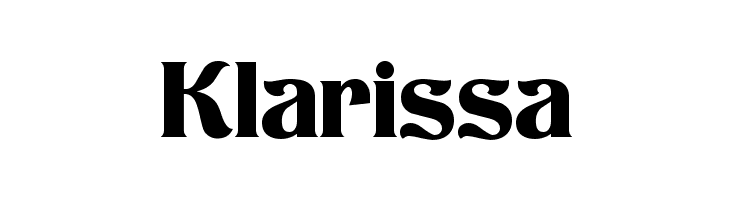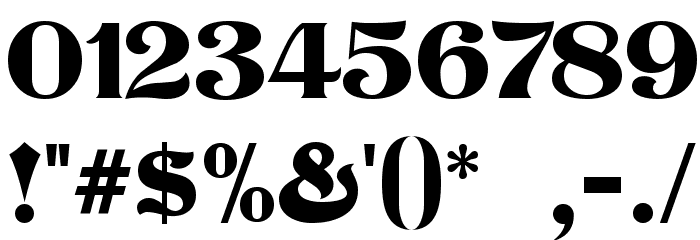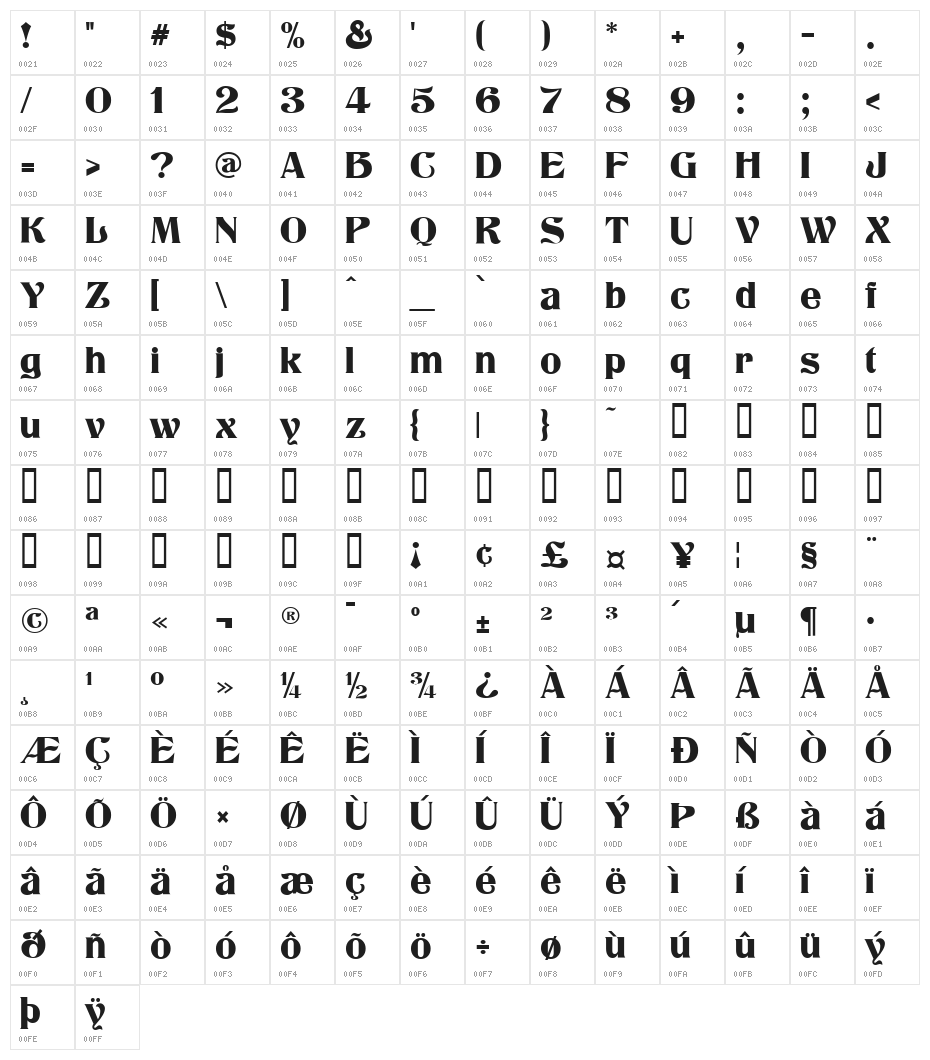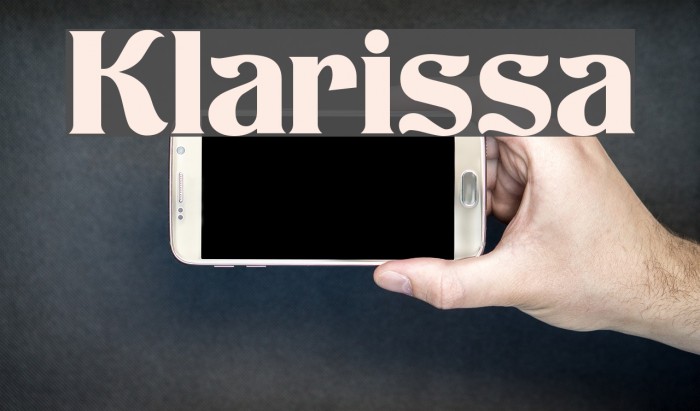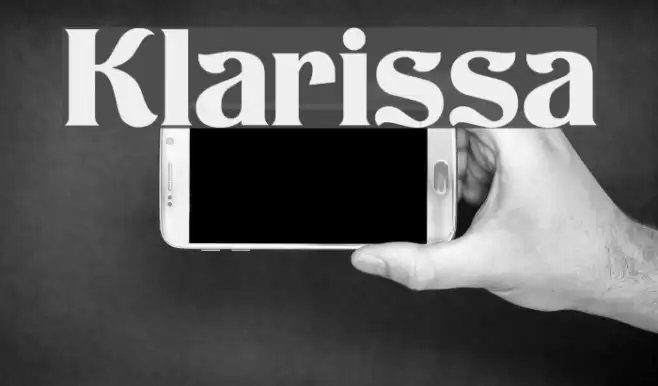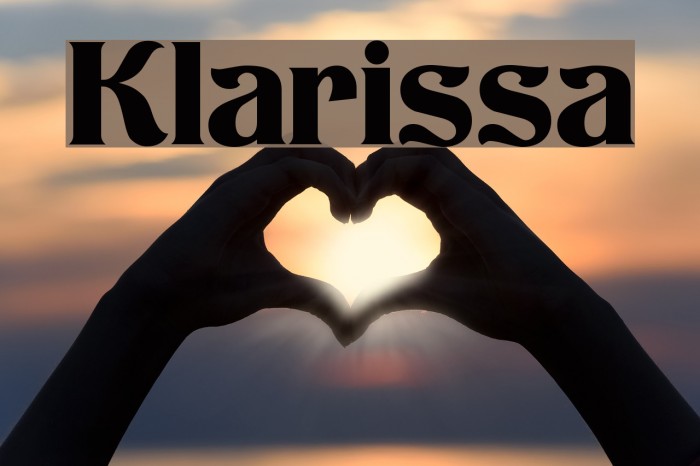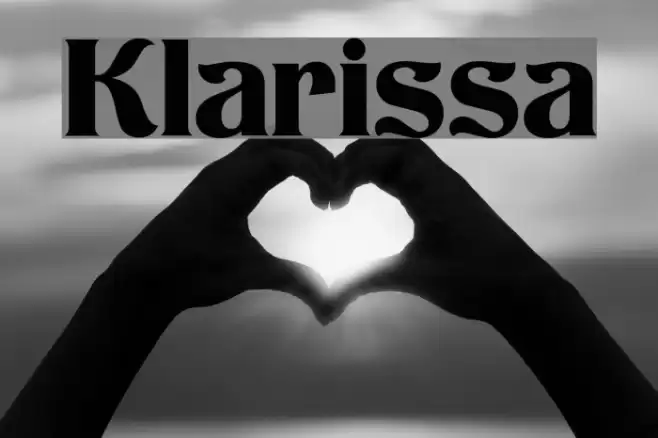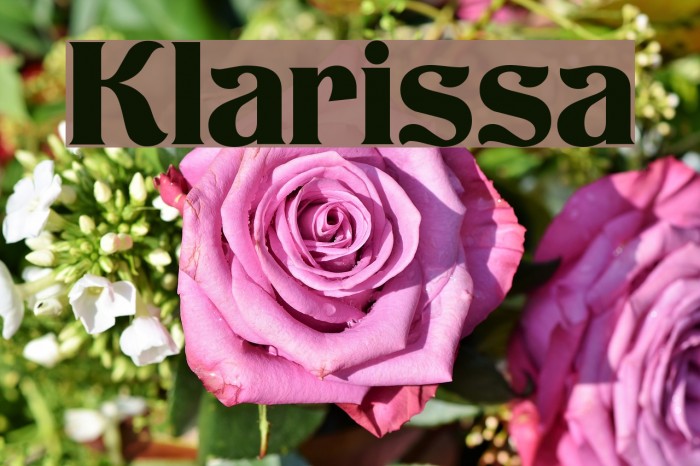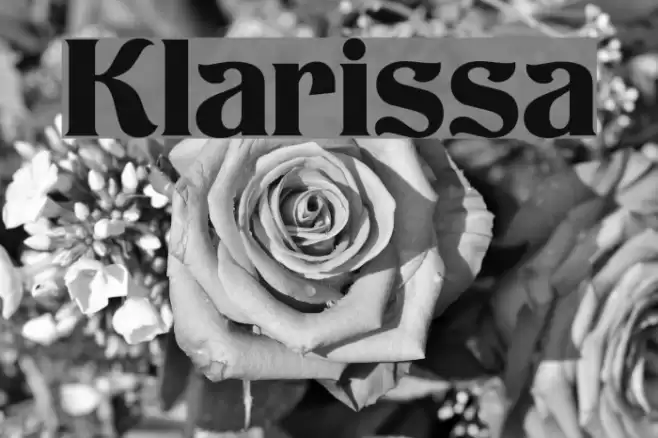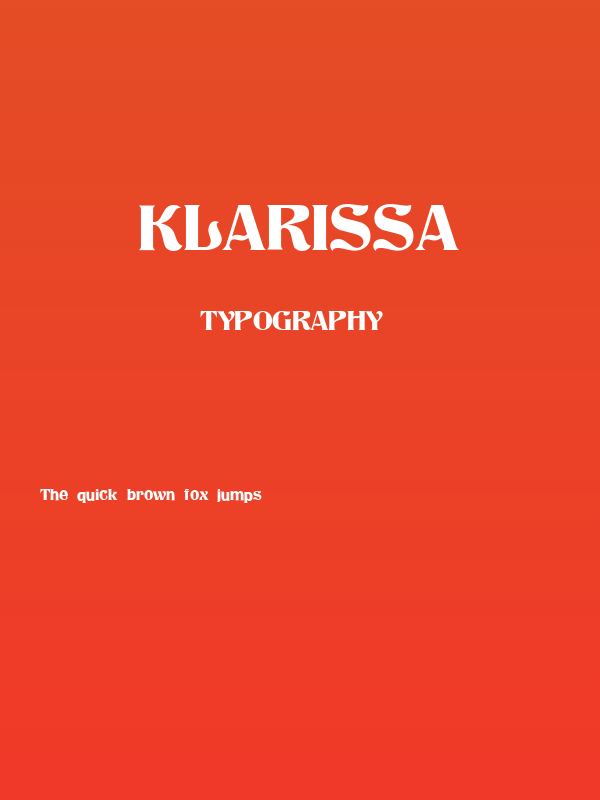
Klarissa Font
Klarissa Description
This font features a bold and striking design with a high contrast between thick and thin strokes, giving it a dramatic and eye-catching appearance. The characters have a unique flair, with some letters incorporating subtle curves and sharp angles, adding to its distinctiveness. The uppercase letters are particularly prominent, with a strong presence that commands attention. The lowercase letters maintain a consistent style, complementing the uppercase set. The numerals are equally bold, ensuring readability and impact. Special characters are designed with the same attention to detail, making this font versatile for various uses.
| Proposed Projects | Ideal for branding, headlines, posters, and any project requiring a strong visual impact. |